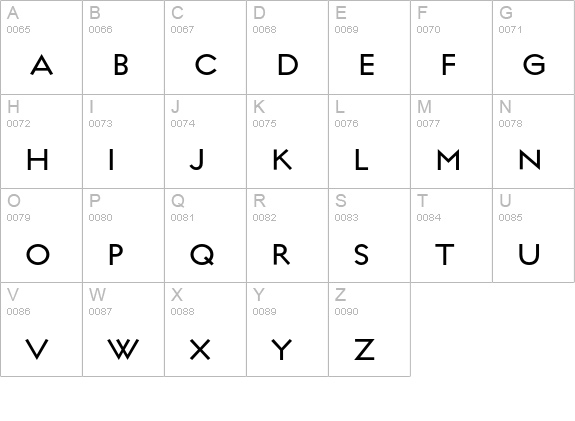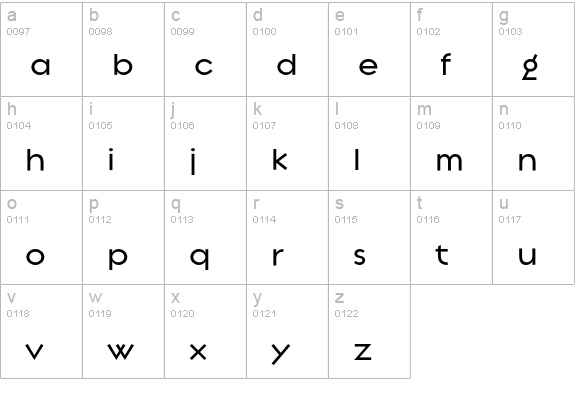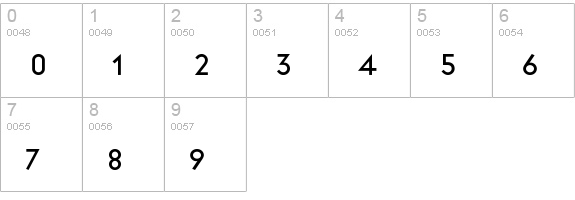
Regulator-Medium Font Details
Regulator-Medium is a balanced, medium-weight variant in the Regulator typeface family \xE2\x80\x94 well suited to sub-headlines, navigation, and balanced editorial work.
Regulator-Medium font is a modern and versatile typeface that exudes confidence and professionalism. With its clean lines and balanced proportions, this font is perfect for a wide range of design projects, from corporate branding to editorial layouts. The Regulator-Medium font strikes the perfect balance between legibility and personality, making it ideal for both print and digital applications. Its medium weight offers a strong presence without overwhelming the reader, making it suitable for body text as well as headlines. One of the best things about Regulator-Medium font is that it is freely available to download at FontsMarket.com. This means that designers and creatives can easily access and utilize this fantastic font without any cost or restrictions. Whether you're a professional designer or a hobbyist, this font provides an excellent opportunity to enhance your projects with a high-quality typeface. With its timeless and versatile design, Regulator-Medium font can be used in a variety of contexts, including websites, advertisements, packaging, and more. Its clean and modern aesthetic ensures that your message will be communicated clearly and effectively to your audience. So why wait? Download the Regulator-Medium font today from FontsMarket.com and elevate your designs to new heights. With its free availability and exceptional quality, this font is a must-have for any designer looking to add a touch of sophistication and style to their work.